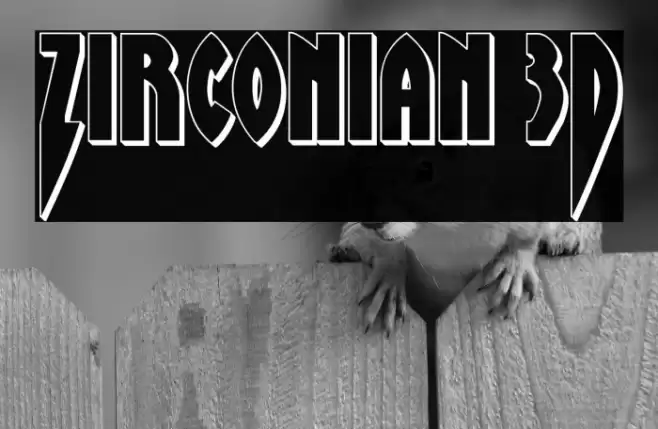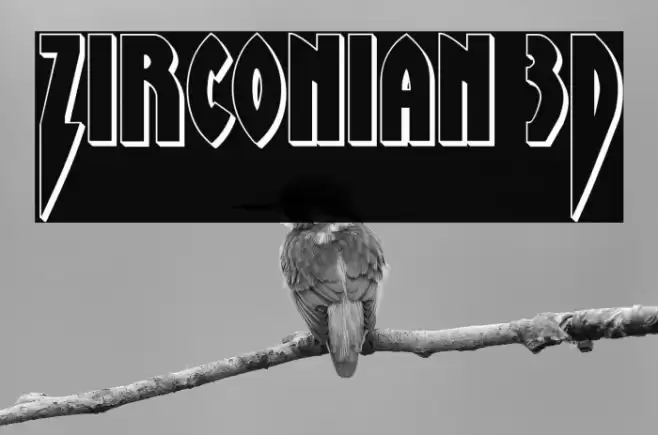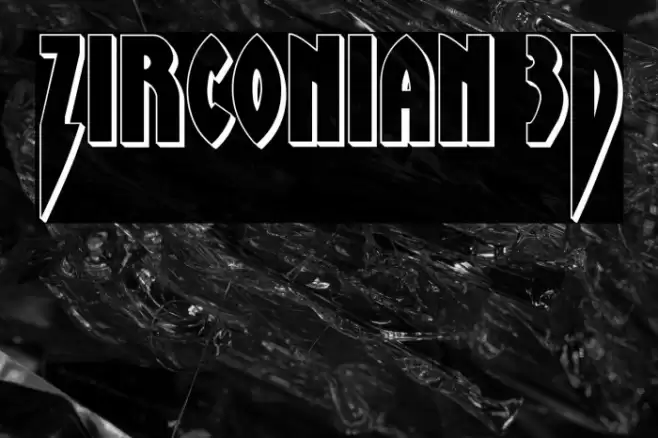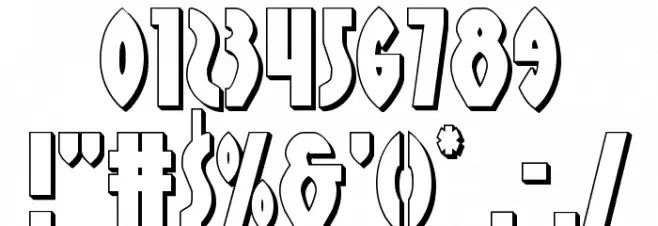
Zirconian 3D Font
Zirconian 3D Description
This font features a bold, three-dimensional appearance with a strong geometric influence. The uppercase letters are characterized by their thick, block-like forms and sharp angles, giving them a futuristic and dynamic look. The 3D effect is achieved through the use of shadowing and layering, creating a sense of depth and movement. The lowercase letters maintain the same boldness and geometric style, ensuring consistency throughout the typeface. Numbers and special characters are designed to match the overall aesthetic, making them suitable for a variety of design applications. The font's unique style makes it ideal for eye-catching headlines and display purposes.
A bold, geometric 3D font with a futuristic and dynamic style from Uncategorized fonts.
- Proposed Projects: Ideal for use in posters, logos, video game graphics, and any project requiring a bold, attention-grabbing typeface.